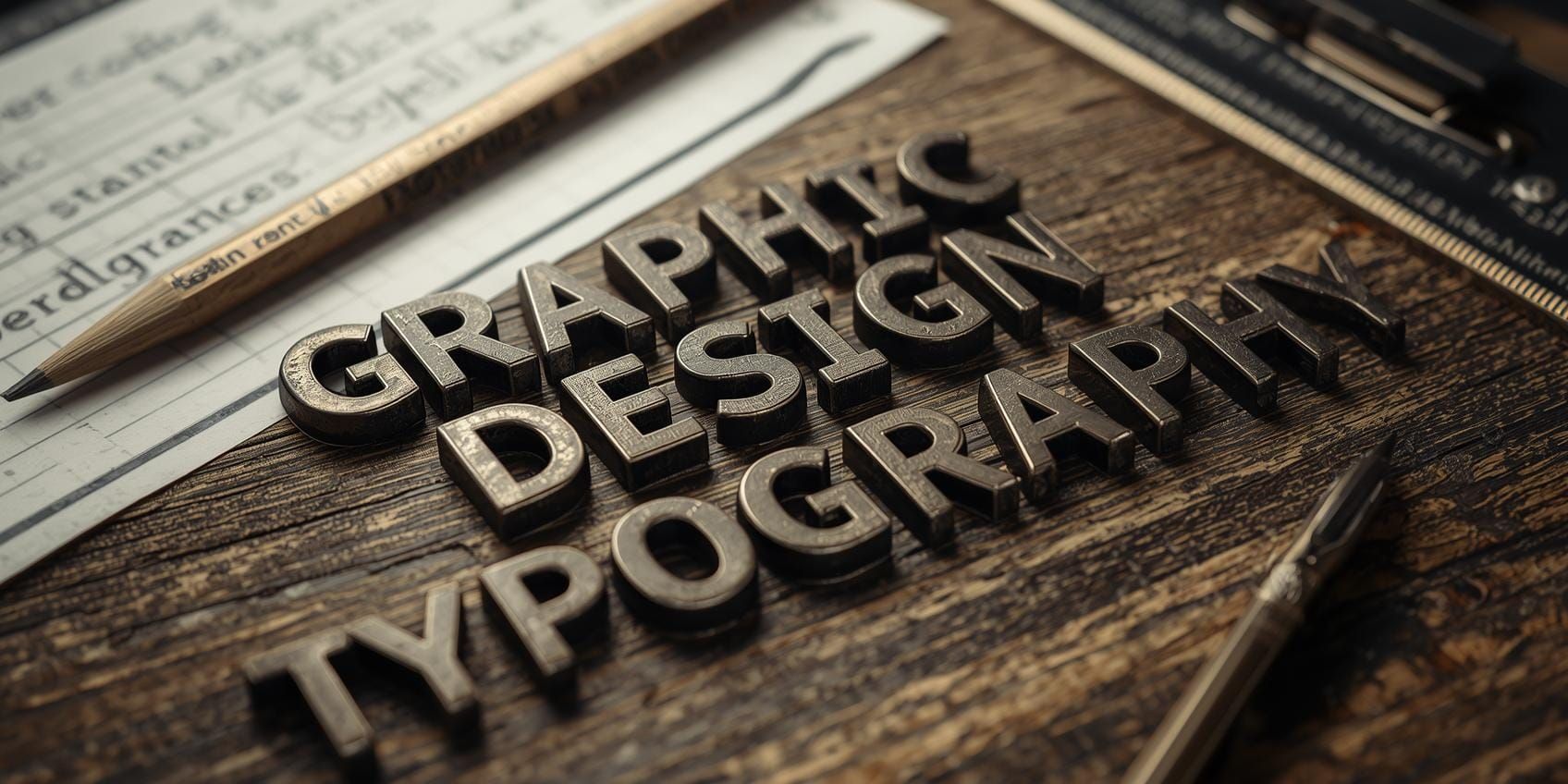
Graphic Design Typography Mistakes and How to Fix Them
Most designs don’t look “amateur” because the colors are wrong or the concept is weak. They look amateur because the type isn’t controlled. Typography is where a design either feels intentional or it feels random. If you want your work to look more professional fast, learning graphic design typography fundamentals will do more for you than learning a new effect or downloading more fonts.
This guide breaks down the most common graphic design typography mistakes designers and creators make, plus practical fixes you can apply immediately in Canva, Figma, Illustrator, or any tool you use.
1. Using Too Many Fonts
What happens
A design uses 4-7 fonts because each section “needs something different.” The result is messy and inconsistent.
The fix
Use a simple rule:
• 2 fonts max for most designs
• 3 fonts max only when you have a strong system
A reliable pairing:
If you want more variety, use weights and sizes instead of new fonts. This is a core graphic design typography discipline.
2. Weak Hierarchy is a Mistakes in Graphic Design Typography
What happens
Everything looks the same size, so nothing feels important. Users don’t know where to look first.
The fix
Build hierarchy using a type scale:
• H1 (headline)
• H2 (support)
• Body
• Caption
A simple starting scale (adjust to your canvas):
• 48 / 32 / 20 / 16 / 12
Also use contrast:
• weight (bold vs regular)
• size (big vs small)
• spacing (more space around important items)
Strong hierarchy is the heart of graphic design typography.
3. Body Text that is Too Small is a Mistakes in Graphic Design Typography
What happens
Designers set body text too small, then rely on “zoom” or assume people will read closely. On mobile, it becomes unreadable.
The fix
Set body text based on the viewing distance:
• mobile graphics: bigger than you think
• posters: readable from a distance
• websites: comfortable reading size
Practical guideline:
• body text usually needs to be at least 14-16px in most digital designs, and larger for graphics with lots of compression.
Readable body text is basic graphic design typography hygiene.
4. Not Enough Line Spacing is a Mistakes in Graphic Design Typography
What happens
Text blocks feel cramped and stressful, especially in paragraphs or multi-line headlines.
The fix
Increase line height:
• headlines: slightly tight, but not cramped
• body text: more breathing room
Quick rule:
• body line height often looks best around 130-160% depending on the font
• captions need extra line height if the font is thin
Better line spacing instantly improves graphic design typography quality.
5. Mixing Fonts that Fight Each Other is a Mistakes in Graphic Design Typography
What happens
Two fonts compete: both are “loud” display fonts or both are very similar, making the design feel confused.
The fix
Pair with contrast and roles:
Avoid:
• two decorative fonts together
• two fonts that are nearly the same but not quite (feels accidental)
Good pairing is a practical graphic design typography skill that improves with repetition.
6. Inconsistent Alignment is a Mistakes in Graphic Design Typography
What happens
Some text is centered, some is left aligned, and some is “almost aligned.” It creates visual noise.
The fix
Pick one alignment style per section:
• left alignment for readability
• center alignment for short, poster-style text
Then use guides and grids. Don’t eyeball it.
Consistent alignment is an underrated graphic design typography upgrade.
7. Poor Contrast Between Text and Background is a Mistakes in Graphic Design Typography
What happens
Text looks “nice” but is hard to read. Common examples:
• light gray text on white
• text on busy photos
• pastel text on pastel background
The fix
Increase contrast using one of these:
• darker text color
• lighter background
• text container (solid box behind text)
• subtle overlay on photos
If text isn’t readable in one second, it’s not working. Graphic design typography is about communication first.
8. Bad Spacing Between Sections is a Mistakes in Graphic Design Typography
What happens
Headlines and subheads sit too close, or sections feel stuck together. The layout feels crowded.